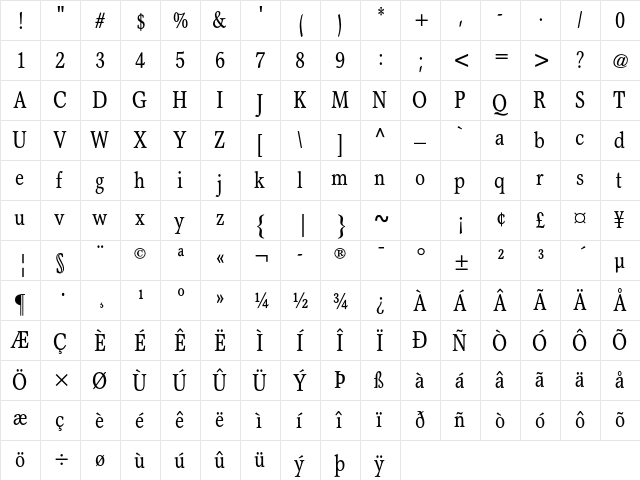
Garth Graphic Std Condensed
| Designer | John Matt, Renee LeWinter, Constance Blanchard |
Design Context for Garth Graphic Std Typeface
Garth Graphic Std takes a measured approach to typography — its balanced proportions and neutral character make it a reliable workhorse for both digital and print work. Its narrow stance lets it pack a punch even in space-constrained designs.